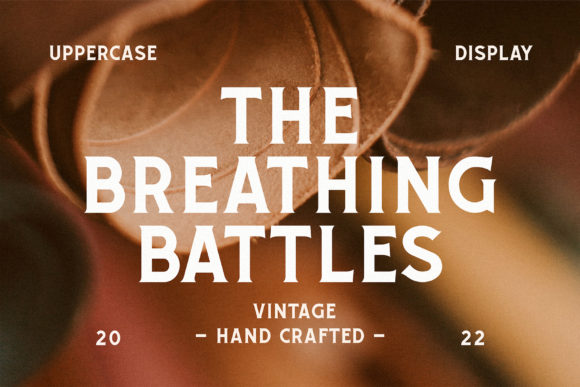
**Unleash the Power of Expression with The Breathing Battles Font**
Embark on a typographic journey with The Breathing Battles, a captivating serif font that will ignite your brand's visual presence. Crafted by the visionary minds at OWL KING, this font embodies the essence of bold creativity, offering a distinctive flair to your designs.
Picture your logo adorned with The Breathing Battles, commanding attention and leaving an unforgettable mark on your audience. Its sharp angles and elegant curves evoke a sense of sophistication and power, establishing your brand as a force to be reckoned with.
Imagine your t-shirts adorned with slogans that resonate with your brand's message, rendered in The Breathing Battles' striking presence. Each letter becomes a canvas for your creativity, expressing your brand's personality with an unparalleled impact.
Unleash the full potential of your creative products with The Breathing Battles. From posters to packaging, this font transforms ordinary designs into extraordinary statements. Its versatility knows no bounds, allowing you to convey your brand's message with style and impact.
In a world of endless fonts, The Breathing Battles stands apart as a beacon of bold expression. Its unique character and unwavering presence will elevate your brand to new heights, captivating your audience with every stroke.
Join the ranks of those who dare to be different, those who seek to leave an everlasting impression. Embrace The Breathing Battles, and let your brand's voice resonate with unparalleled confidence and creativity.